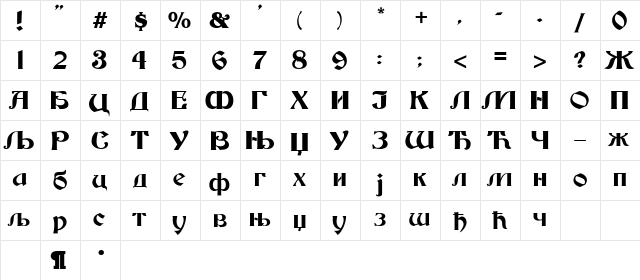
Beker Cirilica Bold
Design Context for Beker Cirilica Typeface
Beker Cirilica offers clean, dependable letterforms without strong stylistic allegiance, making it a practical choice for designers who need flexibility. The heavy weight commands attention and anchors typographic hierarchies.